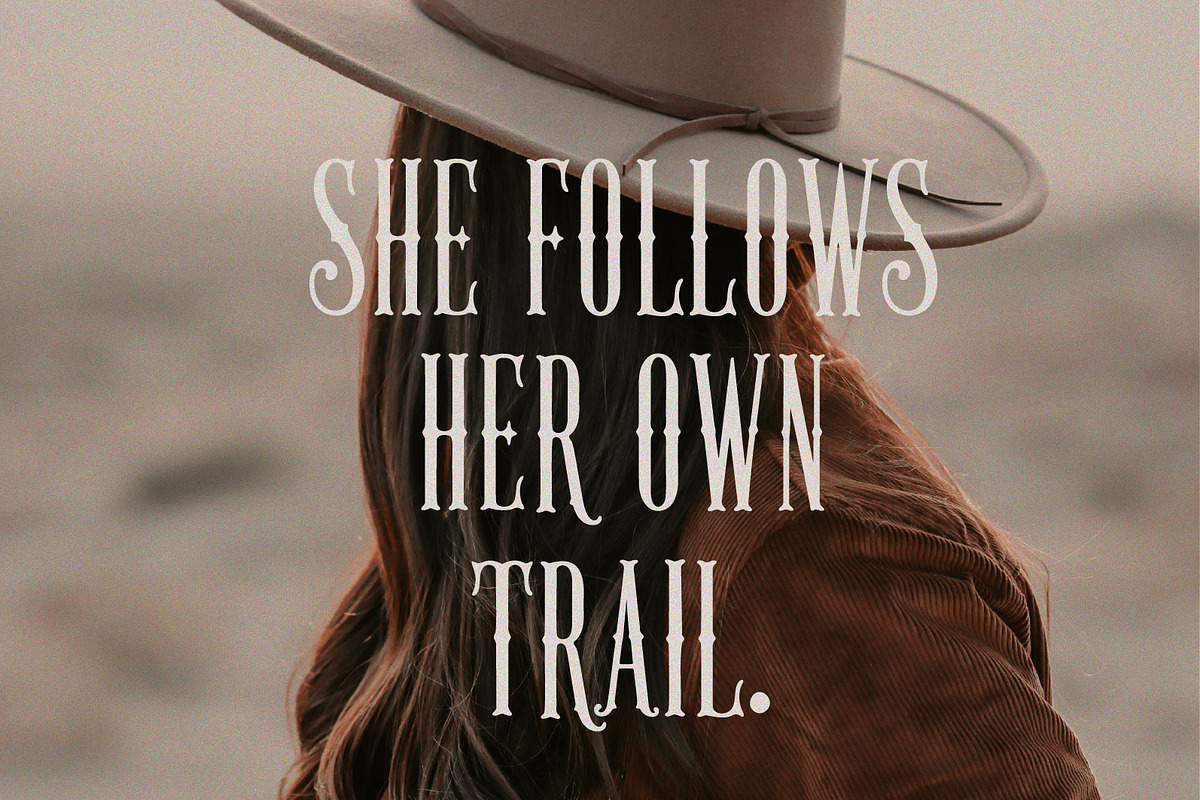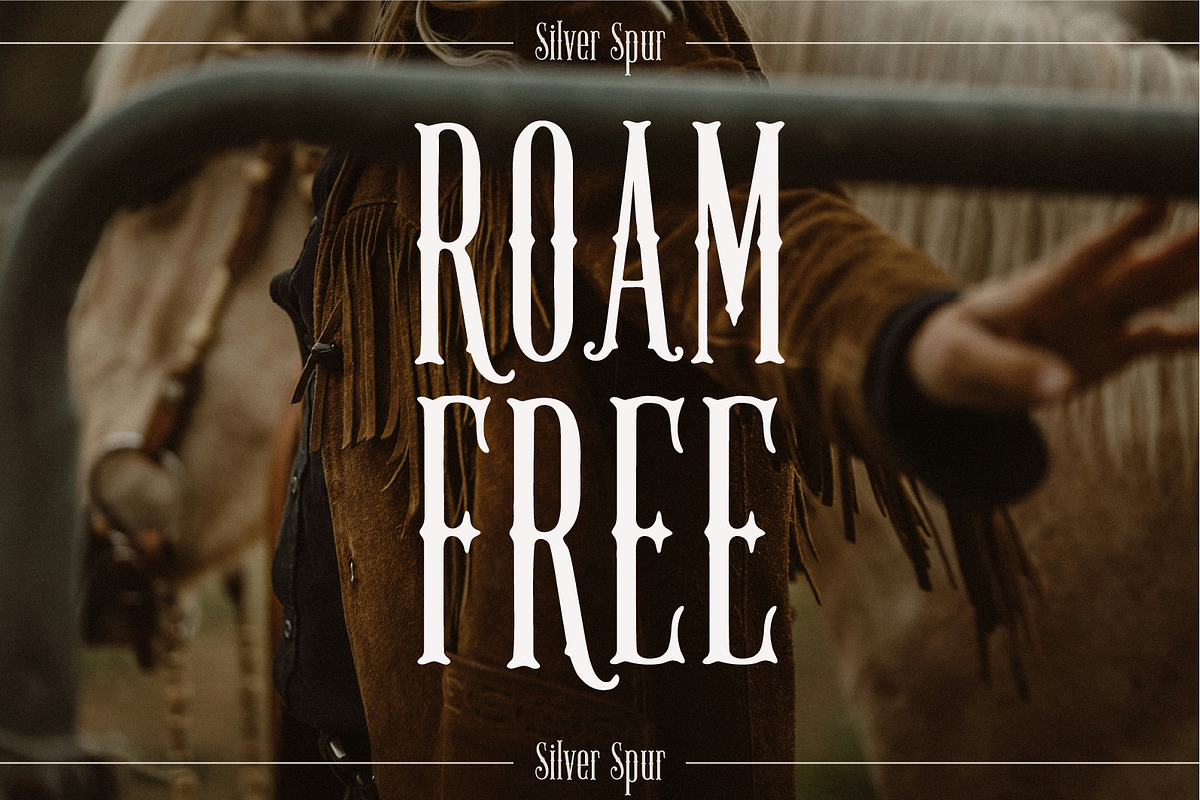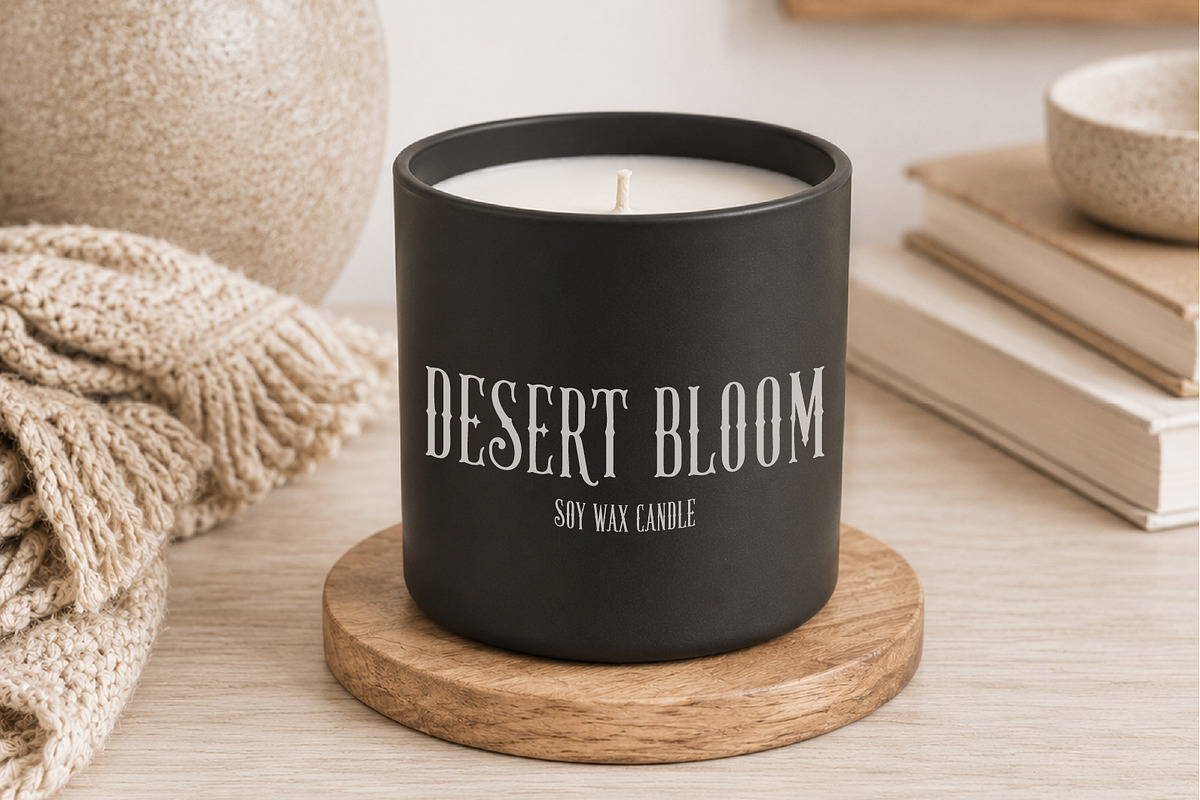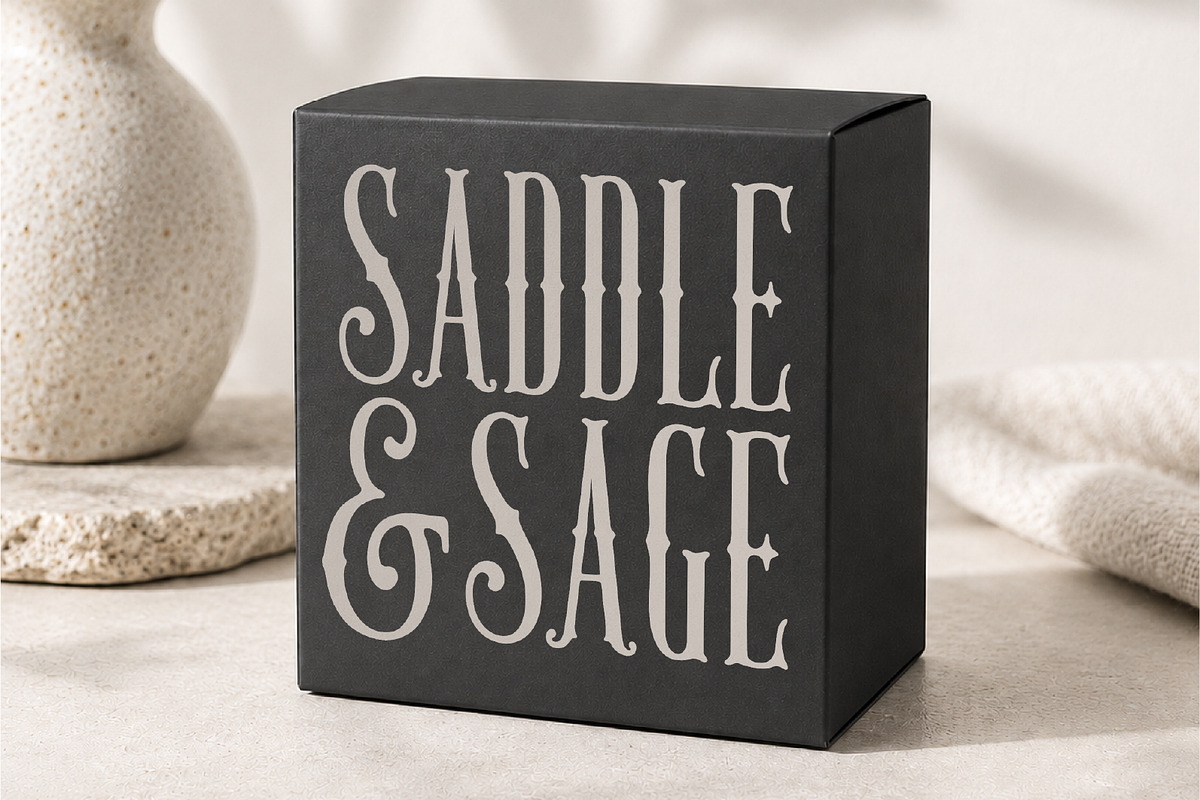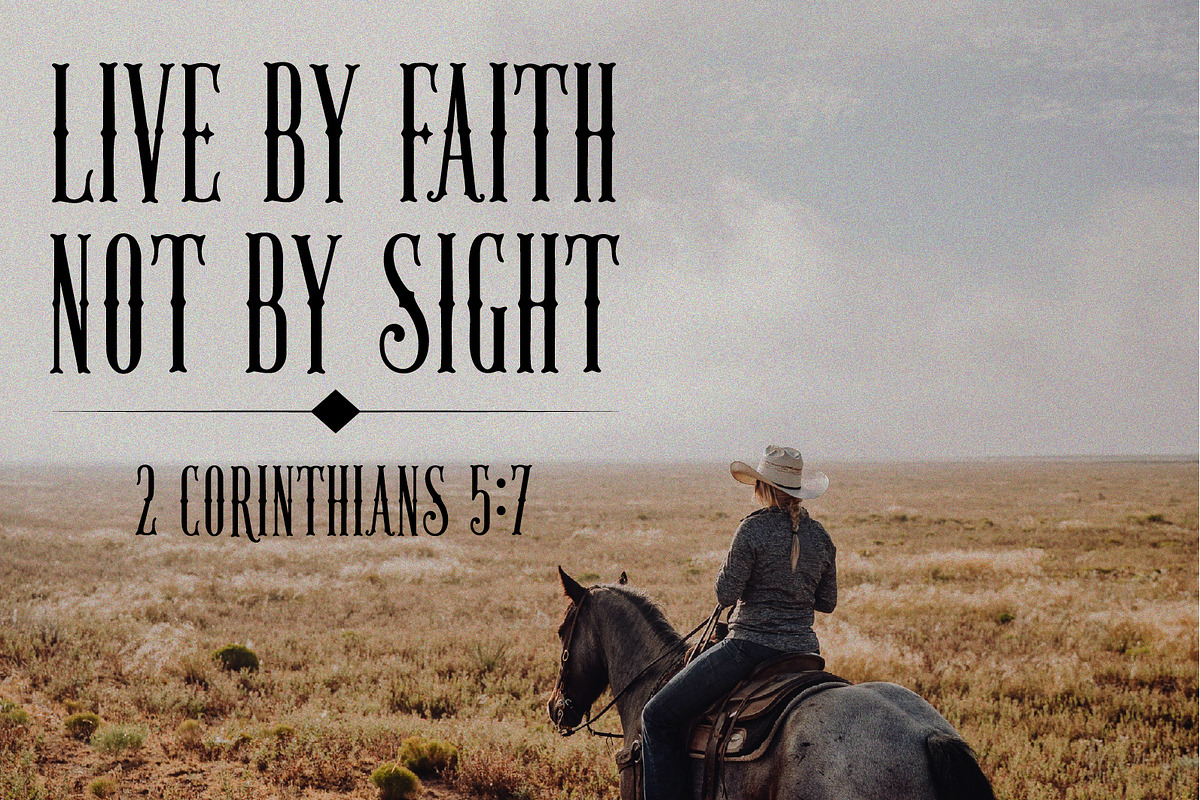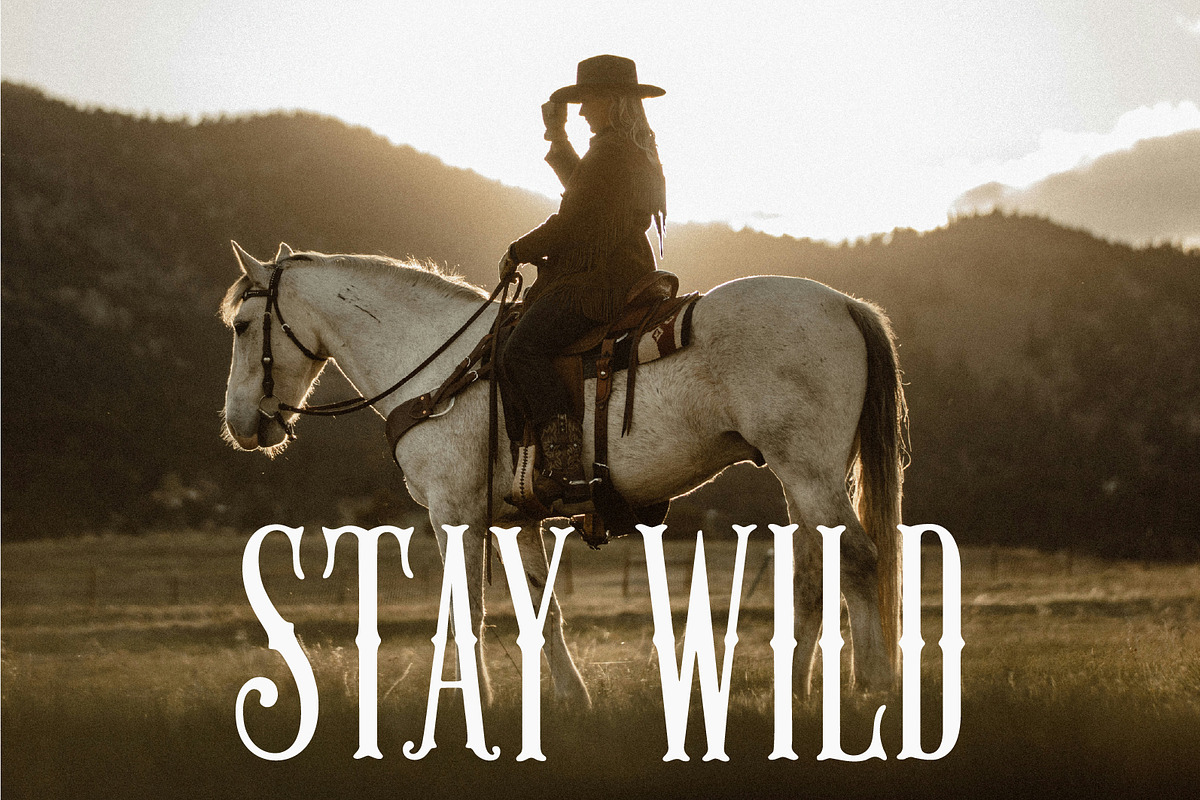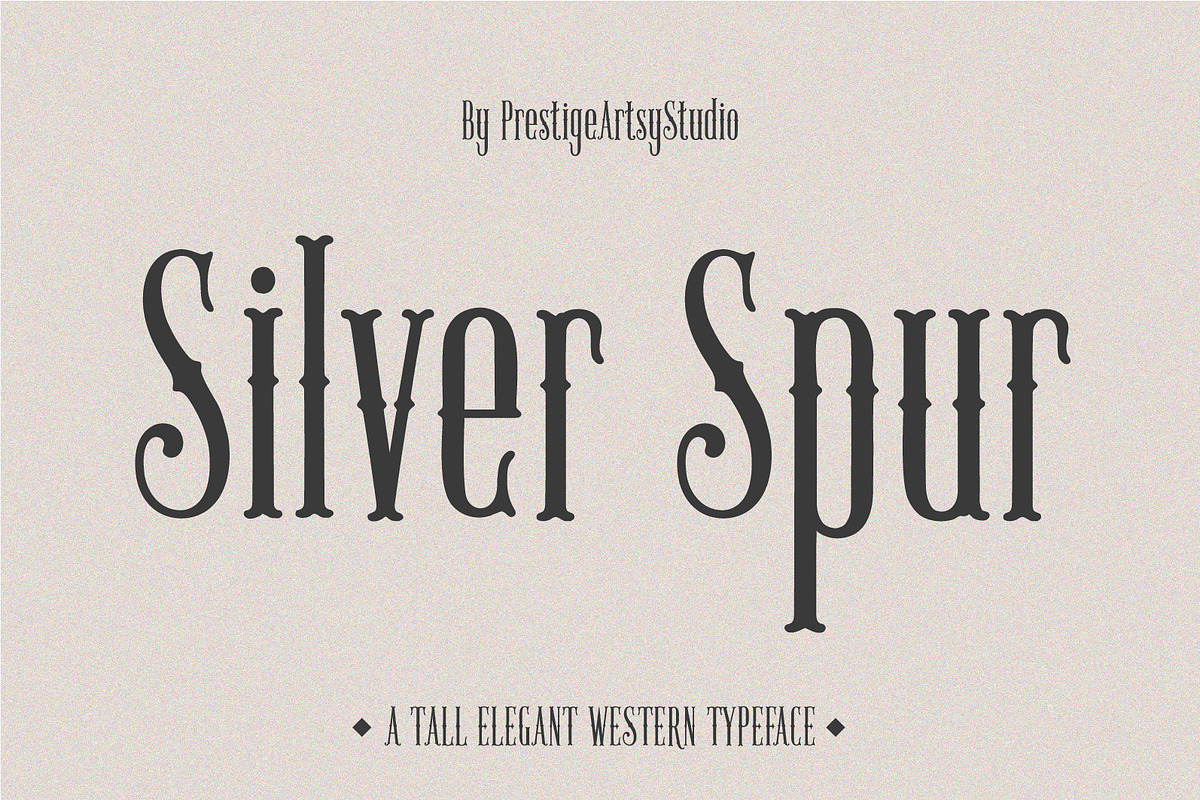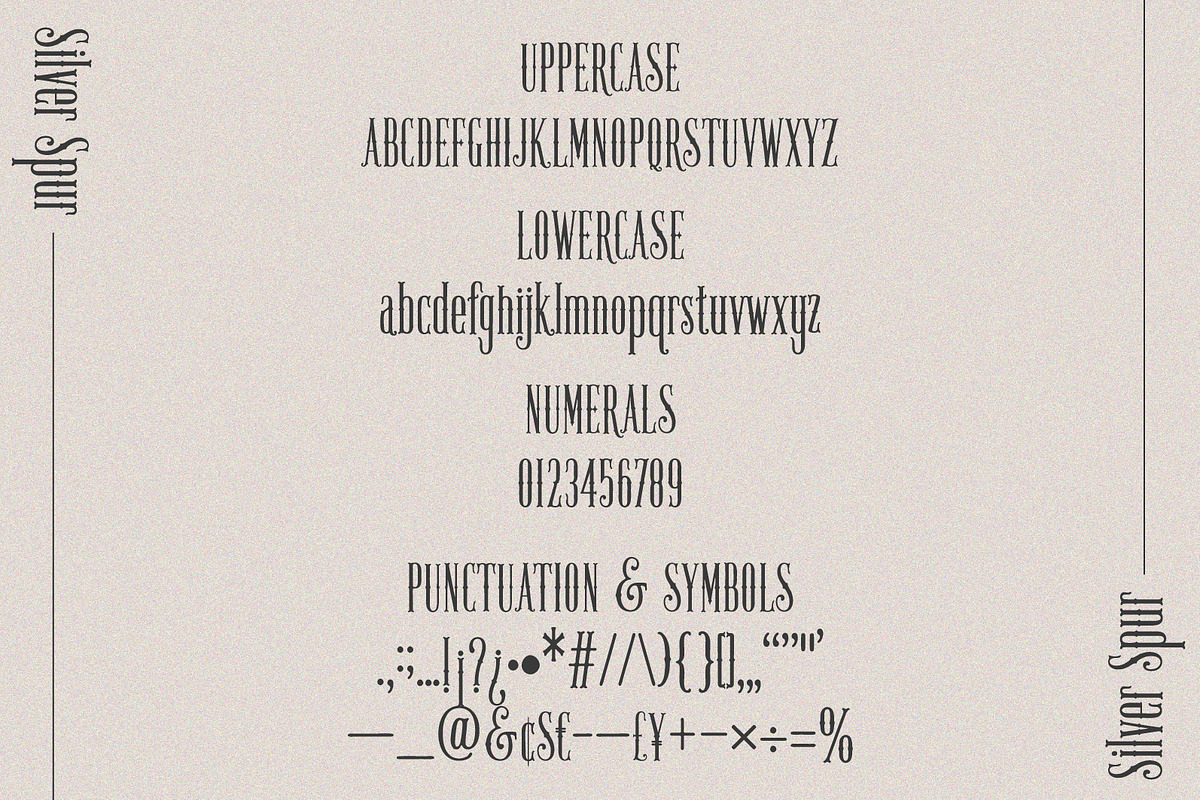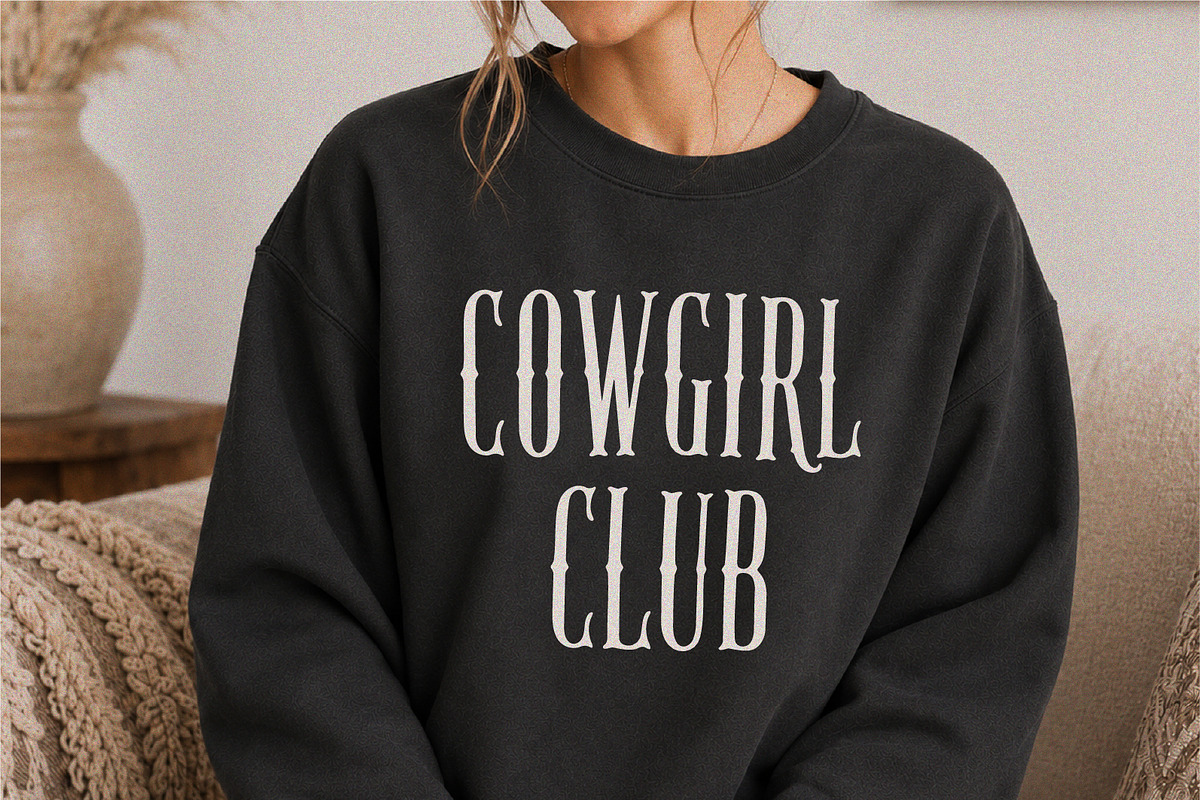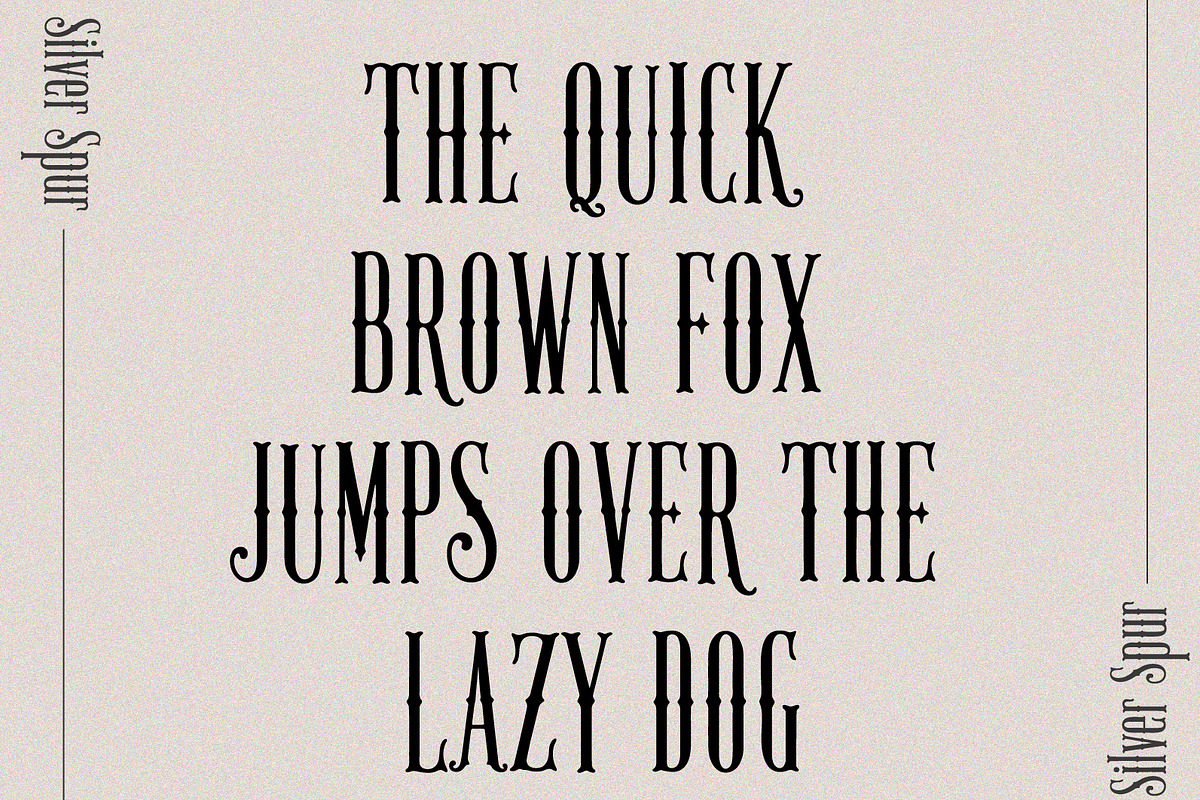
Silver Spur
Meet Silver Spur — an elegant Western serif font with the spirit of the open range and the refinement of modern typography.
Tall, distinctive, and full of character, Silver Spur was designed for creatives who want an unmistakable Western aesthetic without relying on excessively heavy or chunky cowboy lettering.
Its elongated proportions, decorative Western details, medium-weight construction, and striking silhouettes give your typography a confident vintage personality while keeping it stylish, versatile, and highly readable.
Whether you're creating a rugged ranch identity, contemporary cowgirl merchandise, vintage packaging, Western wedding stationery, or a cinematic poster, Silver Spur immediately brings Western character and visual impact to the design.
Western & cowboy branding
Rodeo graphics
Ranch logos
Cowgirl apparel
T-shirts & sweatshirts
Western boutiques
Candle & cosmetic packaging
Coffee branding
Tote bags
Country wedding stationery
Posters & signage
Editorial headlines
Product labels
Vintage-inspired merchandise
Equestrian branding
Character Set
Uppercase A–Z
Lowercase a–z
Numerals 0–9
Currency symbols
Special characters & symbols Silver Spur isn't simply another cowboy font. It was created for designers who want the nostalgia and character of traditional Western typography with a cleaner, more elegant contemporary finish.
Use it large on apparel. Build a distinctive ranch logo. Give packaging an old-West personality. Create atmospheric posters, signage, invitations, labels, and merchandise that instantly feel more memorable.
Bring the open range to your typography with Silver Spur.